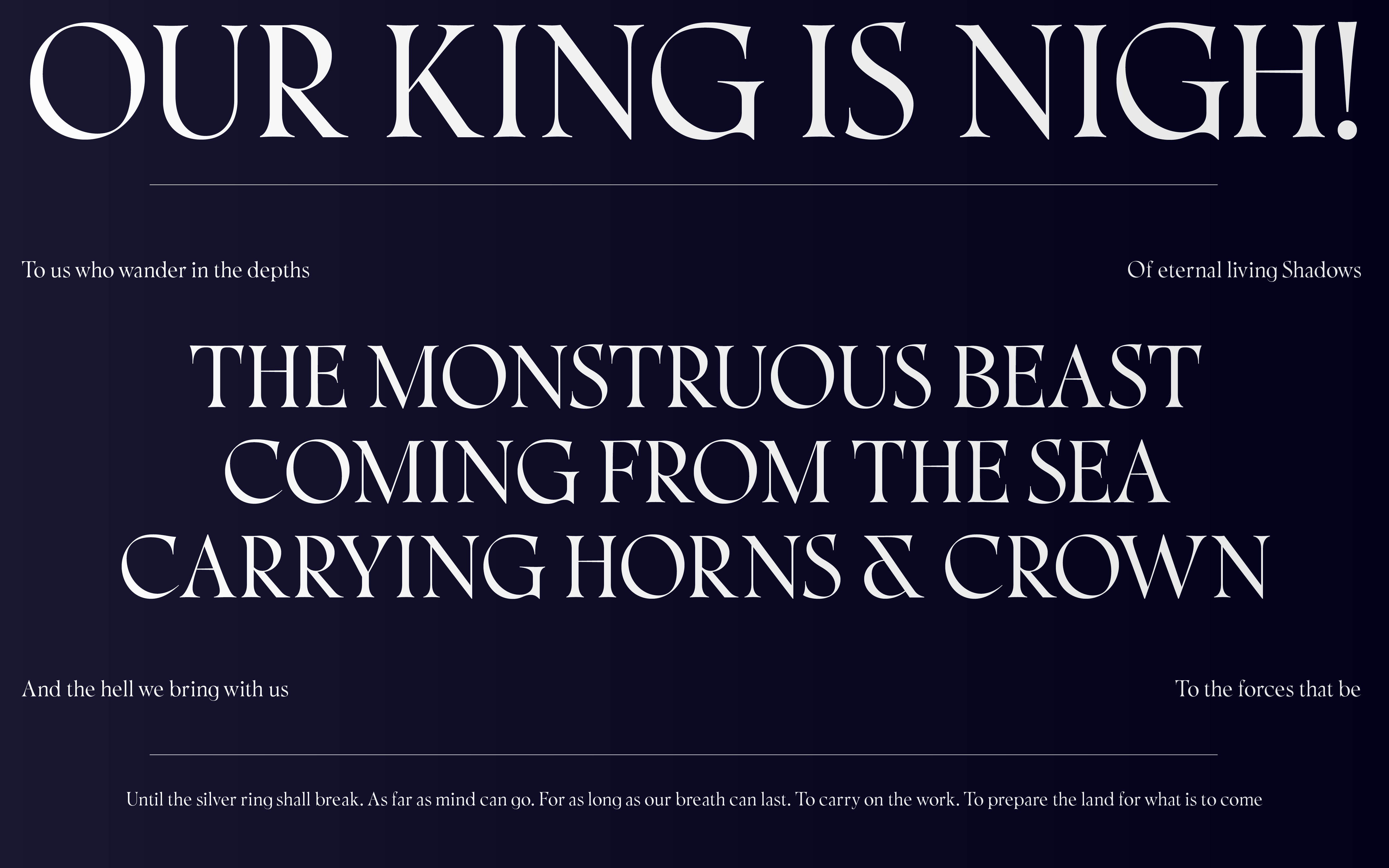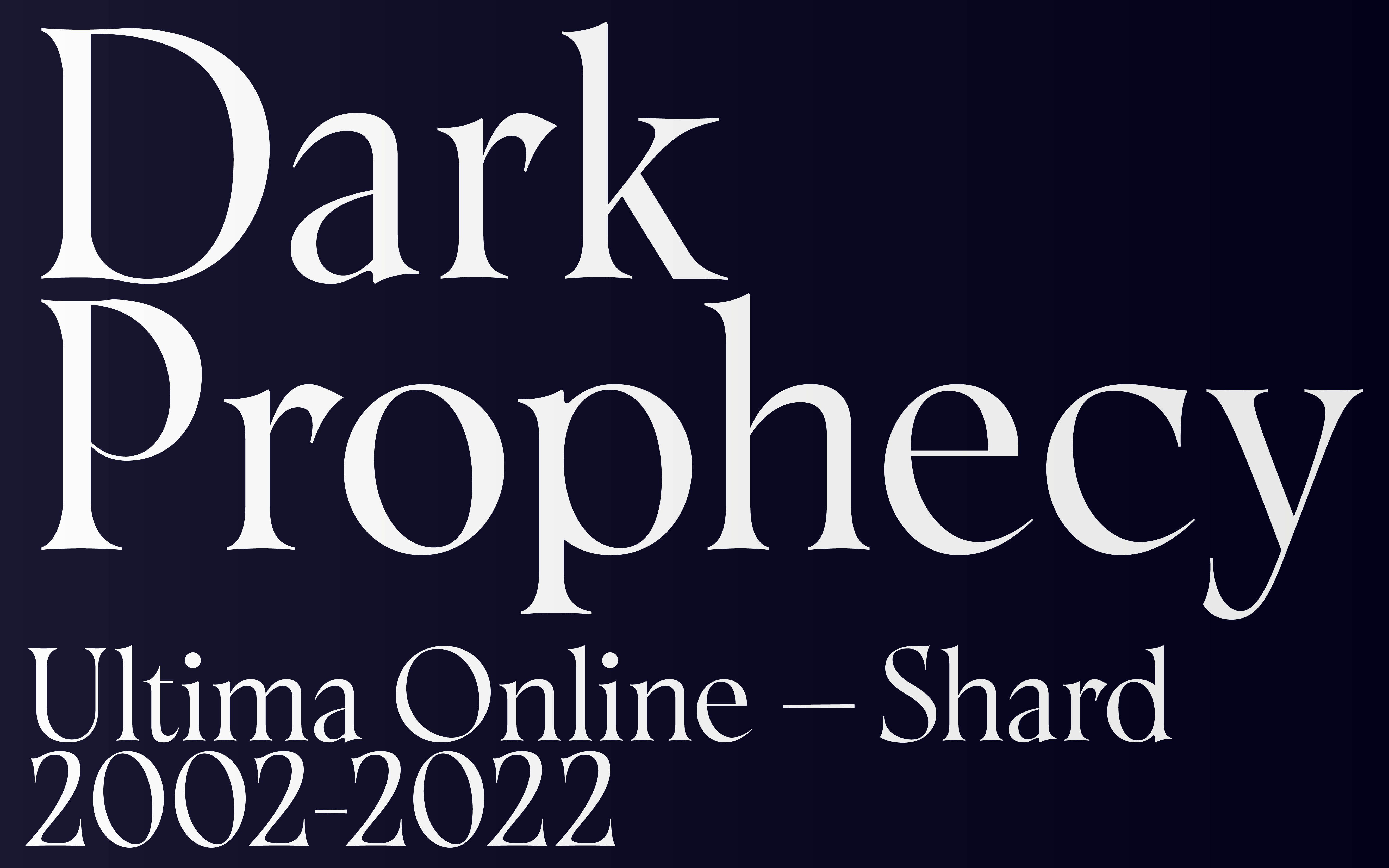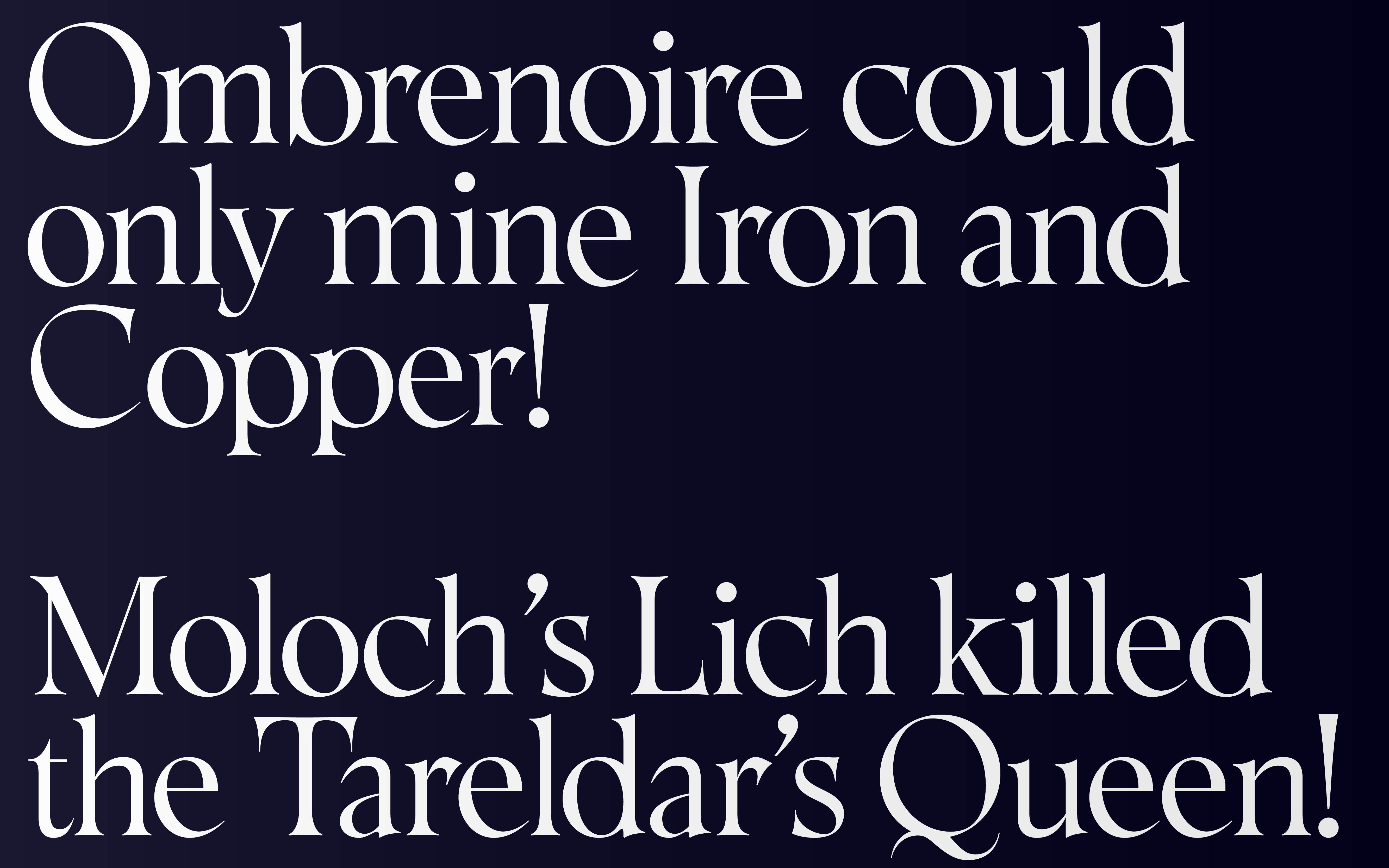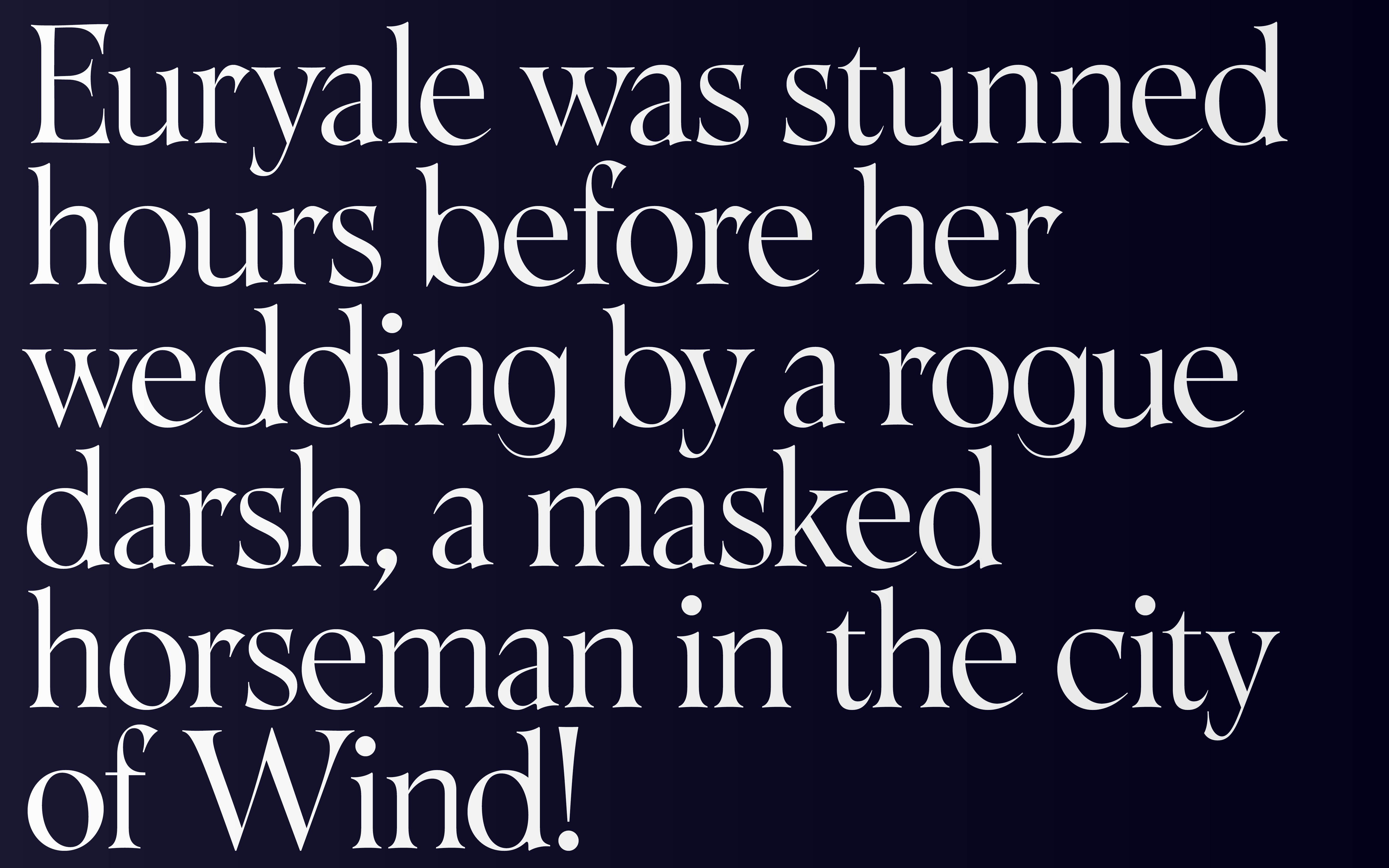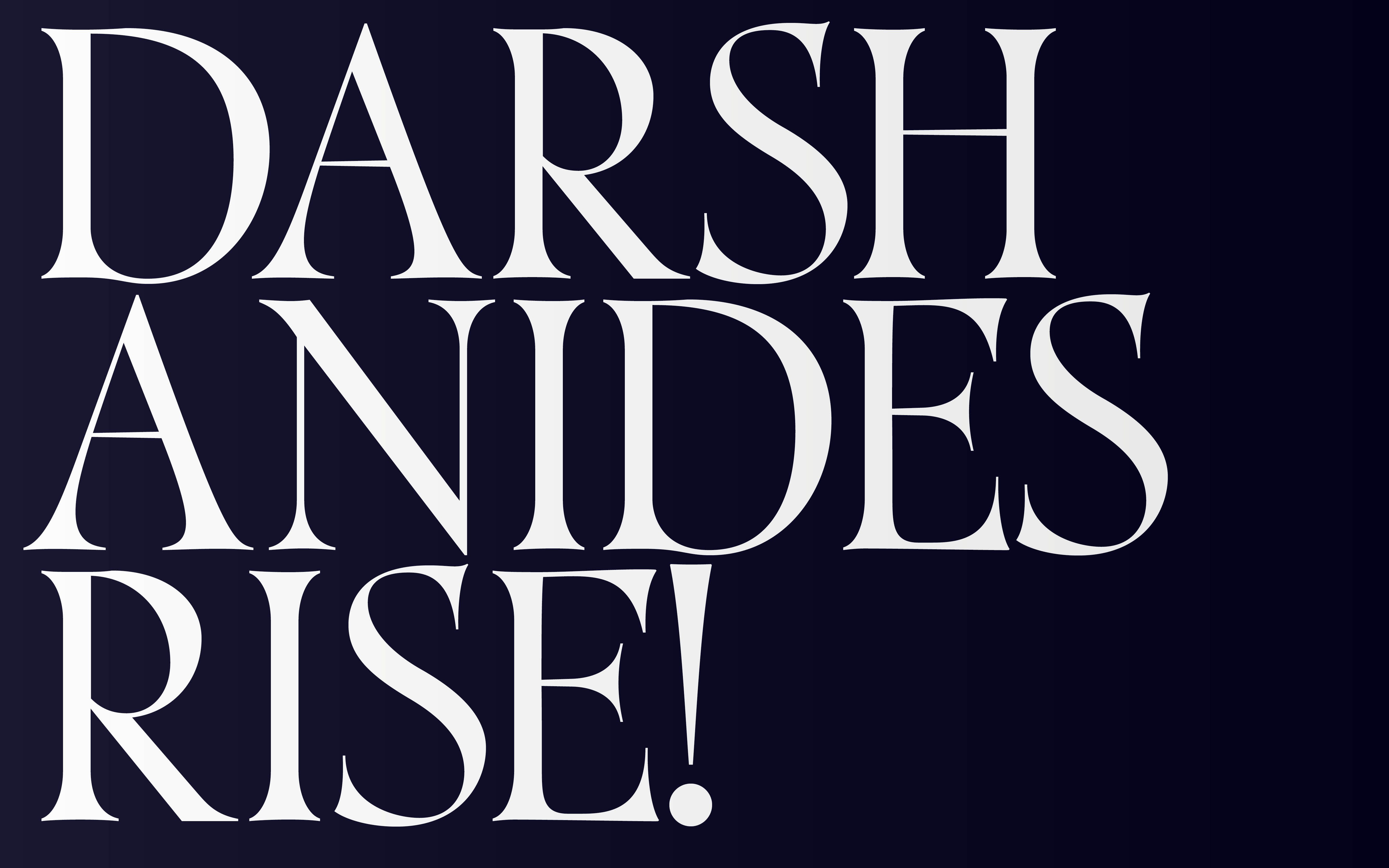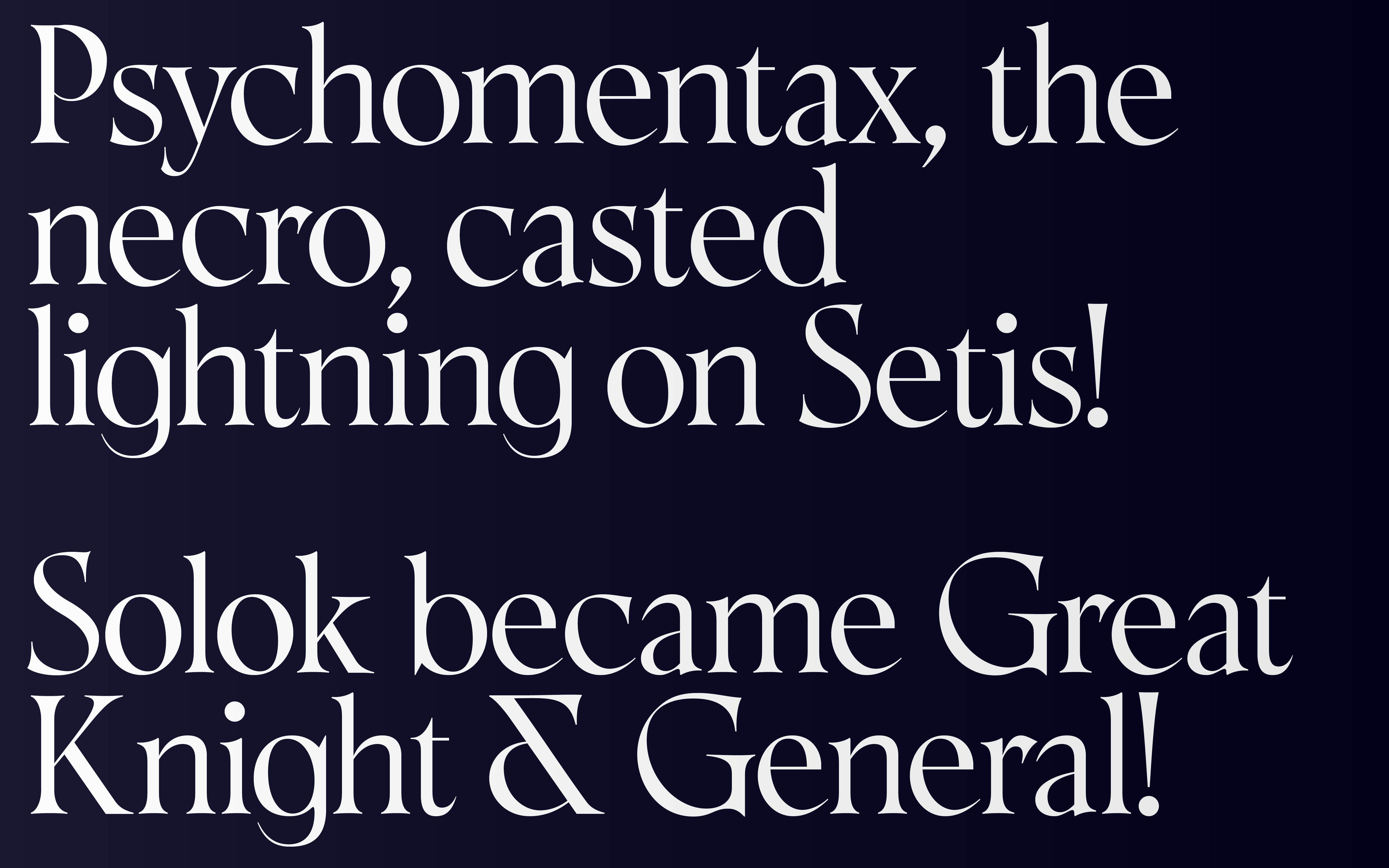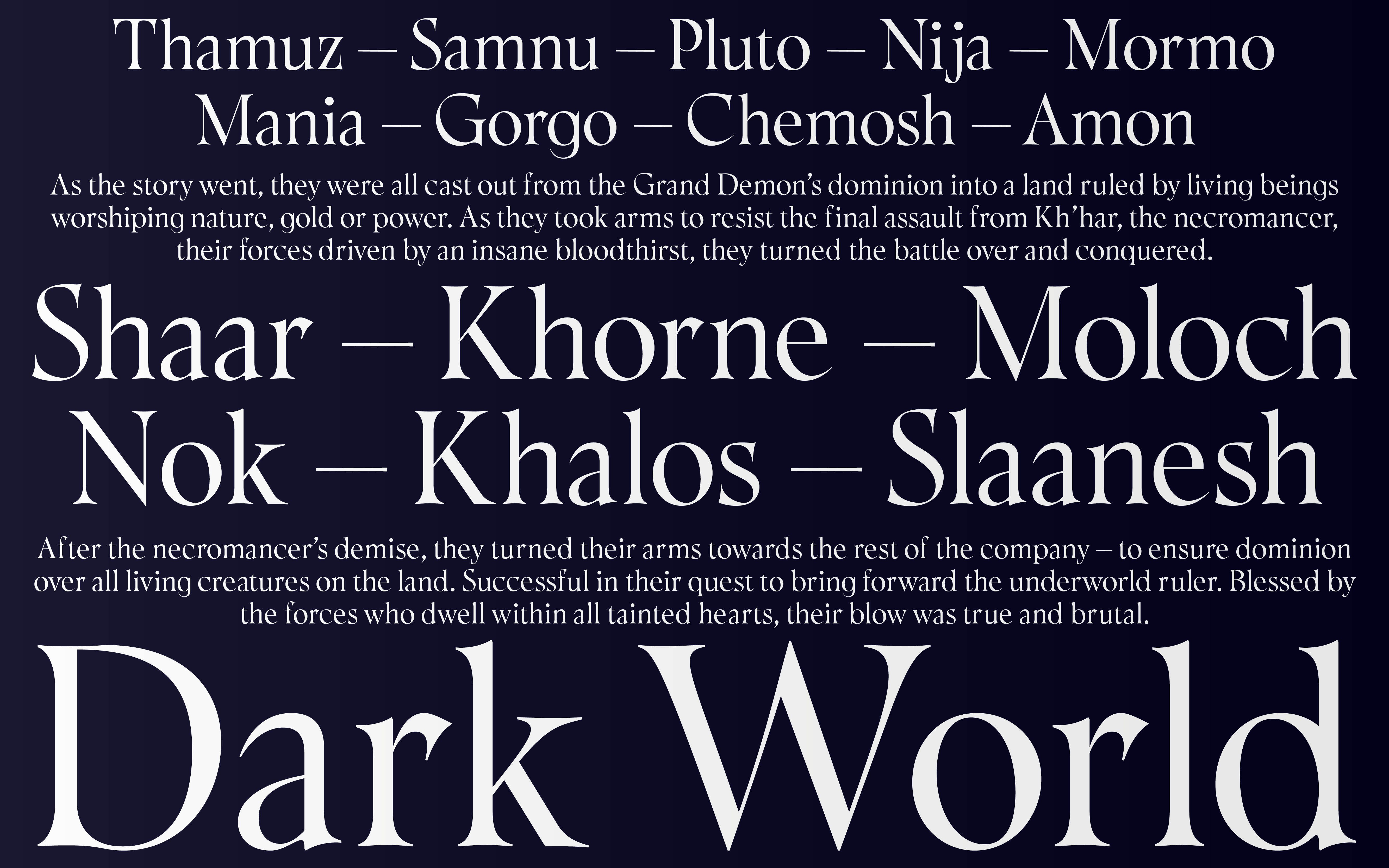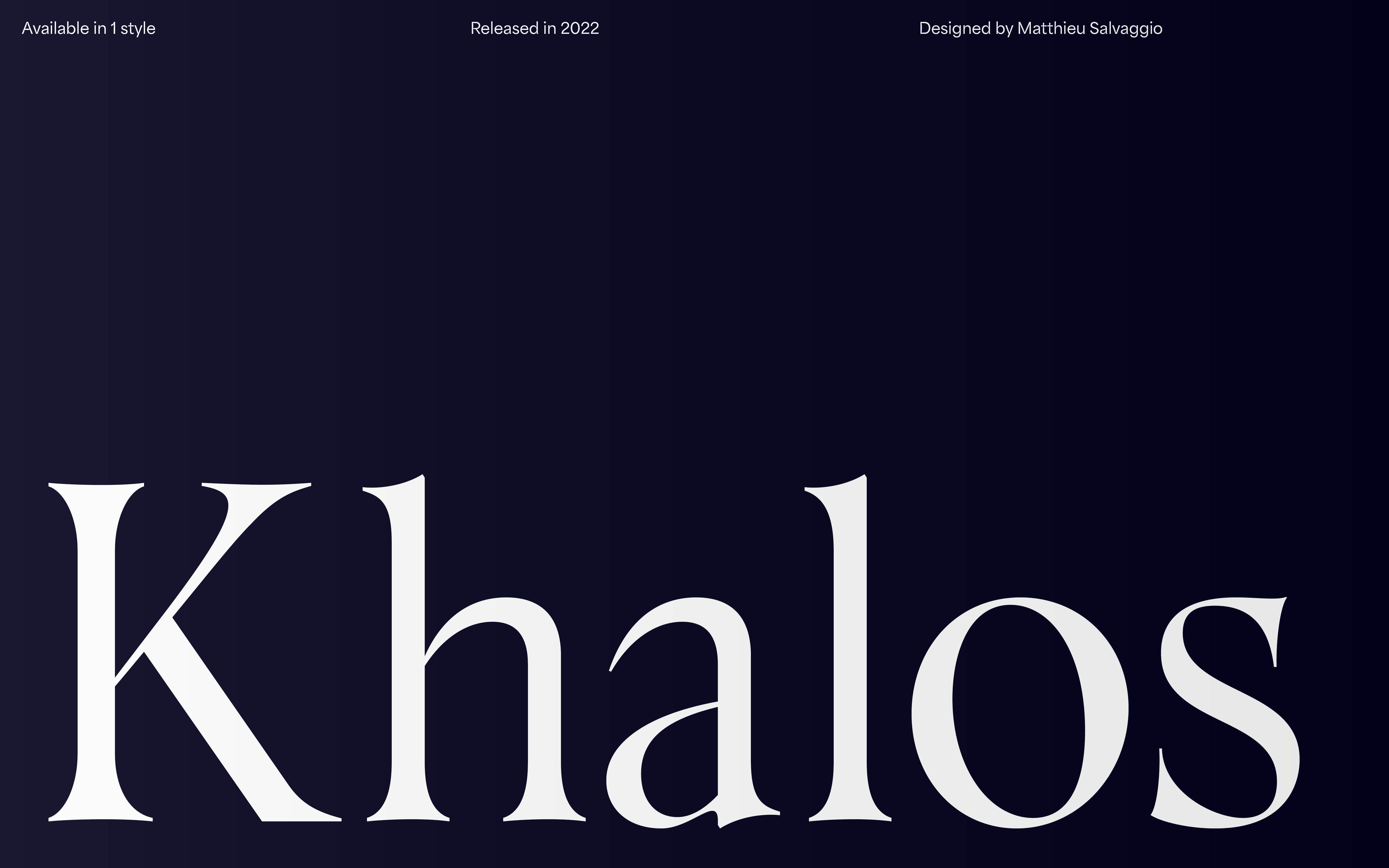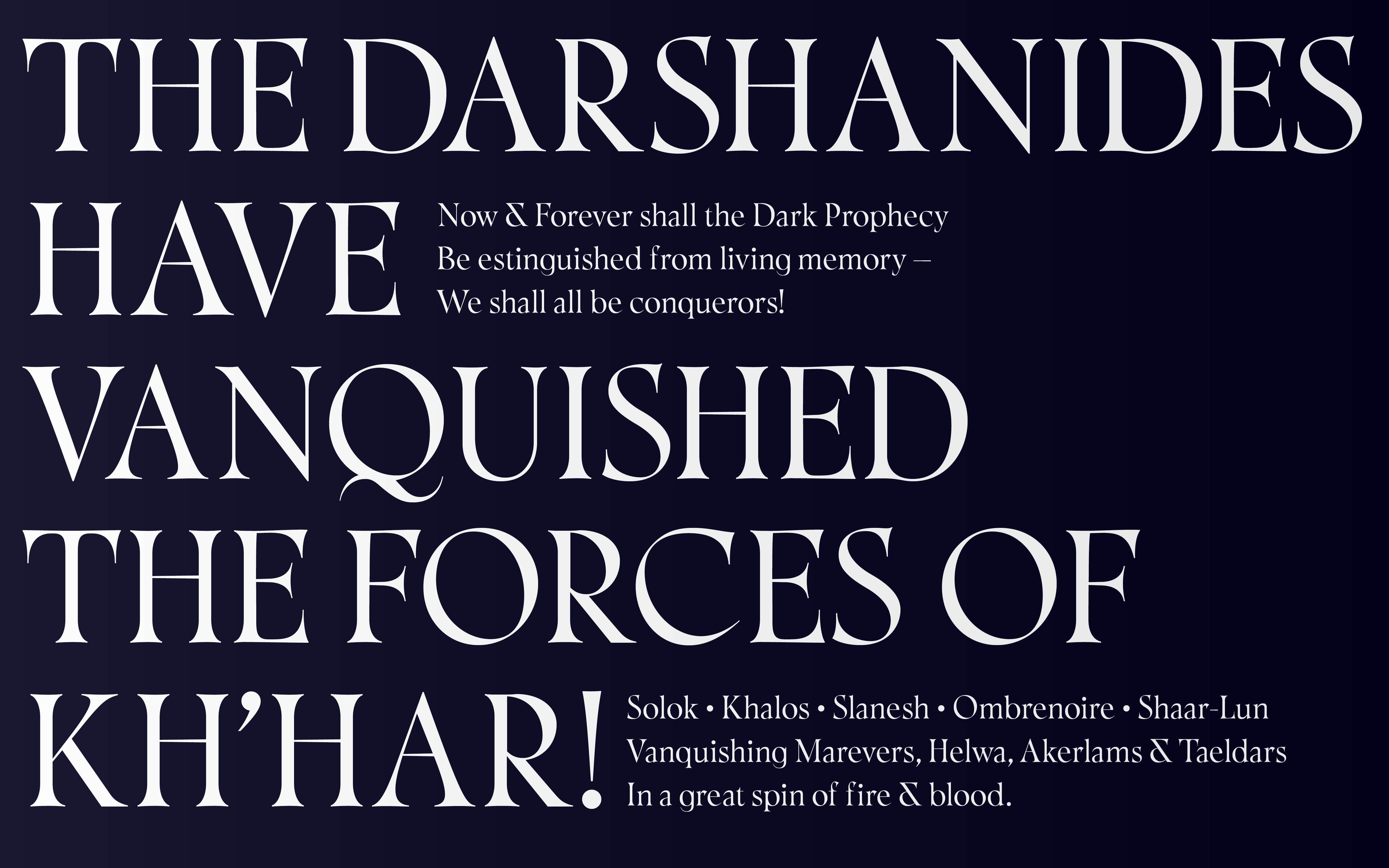
Khalos
Updated in 2025 with multiple weights and additional true italics
Khalos is a font inspired by the adventures of a group of Darshanides on the video game Ultima Online, and more specifically on the Dark Prophecy shard circa 2002. Its long spiky serifs and highly contrasted round shapes are a balance between elegance and barbed feelings. A true echo to the world of Ultima online and the adventures of Shaar, Mentax, Ombrenoire, Khorne, Slanesh, Arcatus and Khalos. This font is a bridge between historical calligraphic ductus and a more modern and sensitive approach to the overall width rhythmic.
Designed for heavy display uses, Khalos will make wonders when used in headlines, high font sizes on posters, books, websites, apps and video games screens.